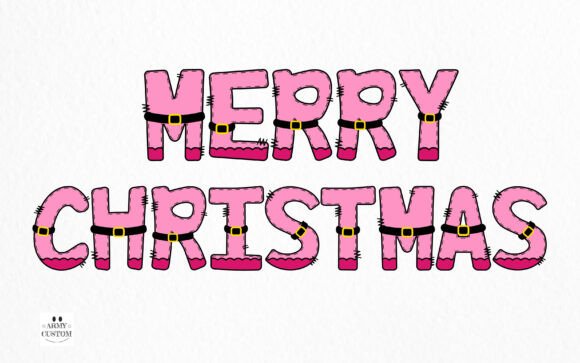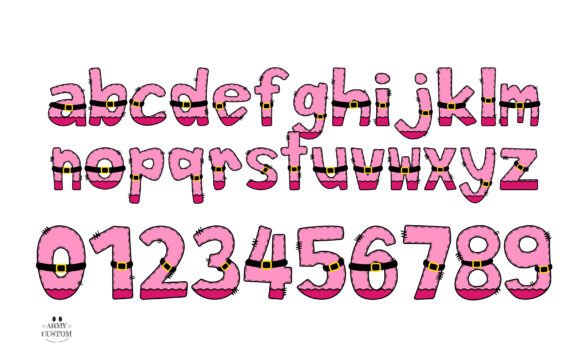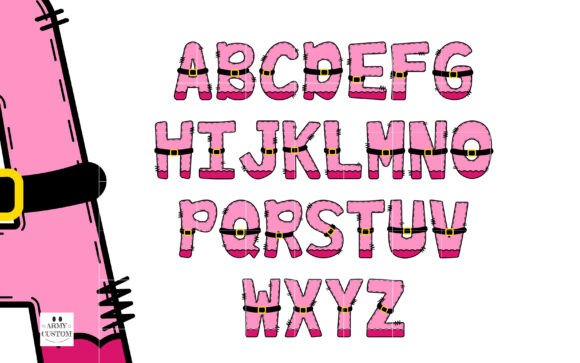
Introduction to Santa Ho Ho Ho Pink Font
Fun, festive, and full of joy β€” Santa Ho Ho Ho Pink Edition is a playful Christmas font dressed in pink and black with cute belt accents inspired by Santa’s suit.
Each letter is hand-drawn with stitched edges and holiday character, making it a perfect font for kids’ crafts and winter designs This decorative typeface includes uppercase, lowercase, and numbers, ideal for Christmas cards, t-shirts, party invitations, posters, and festive merchandise.
Key Features of Santa Ho Ho Ho Pink Font
Why Choose Santa Ho Ho Ho Pink Font?
Santa Ho Ho Ho Pink Font offers exceptional quality and versatility, making it a valuable addition to your design toolkit. Whether you’re creating for personal projects or commercial use, Santa Ho Ho Ho Pink Font delivers professional results.